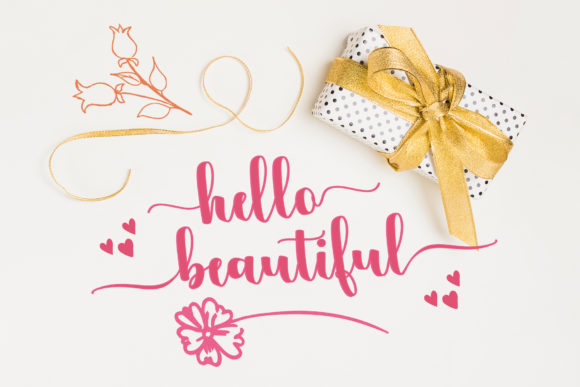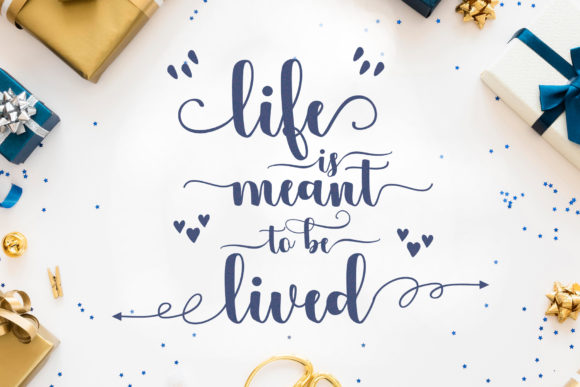
Roslyta Font
db-ku.com - Script & Handwritten -- Roslyta is a beautiful handwritten font with cute doodle elements. It features a joyful style that will take your designs to the next level!